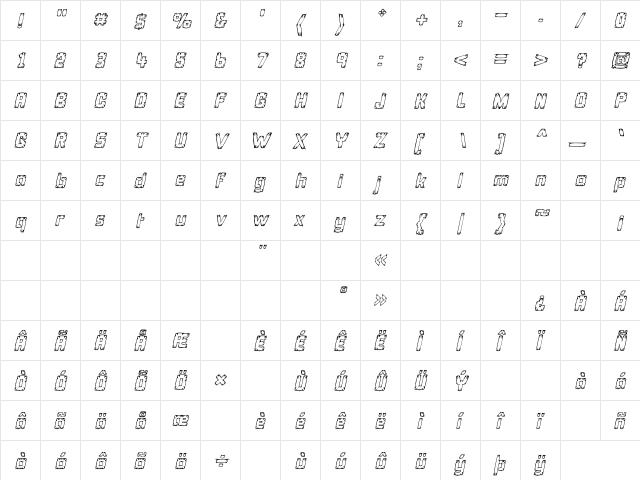
Dreamspiked Regular
Design Context for Dreamspiked Typeface
Dreamspiked is a composed and adaptable typeface that performs quietly and consistently across a wide range of design contexts.